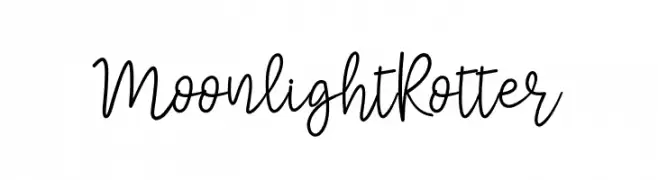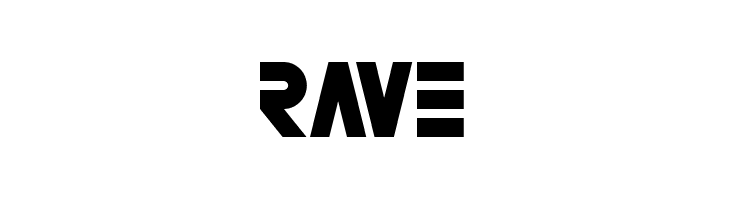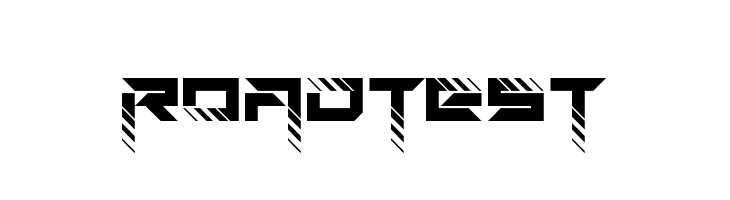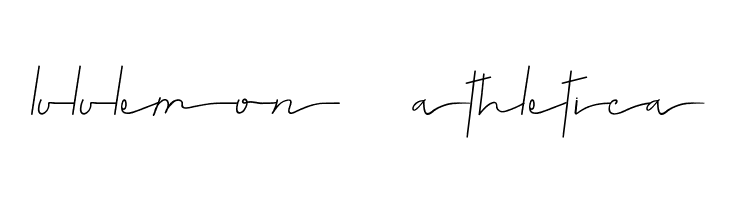
A whimsical, hand-drawn font with playful, curly elements and decorative uppercase letters.
A geometric, modern font with square-like characters and clean lines.
An elegant, cursive font with intricate loops and swirls, mimicking a handwritten signature.
A lively and expressive handwritten font with fluid, cursive strokes.
A delicate and elegant script font with flowing, interconnected letters.
A pixelated, retro-style font with a blocky, digital appearance.
A bold, angular font with sharp edges and a geometric structure.
An elegant script font with flowing, interconnected letters and graceful swashes.
A sophisticated script font with flowing, cursive letterforms and elegant flourishes.
A fluid and elegant script font with a handwritten appearance.
设计师偏爱 MTF Girlie, TT Octosquares Trl Exp Md, Tanda Tangan Regular, BostyaPersonalUse-Regular and Bevalonia,因为其造型干净、适用范围广—— 从品牌识别到落地页、海报都能胜任。